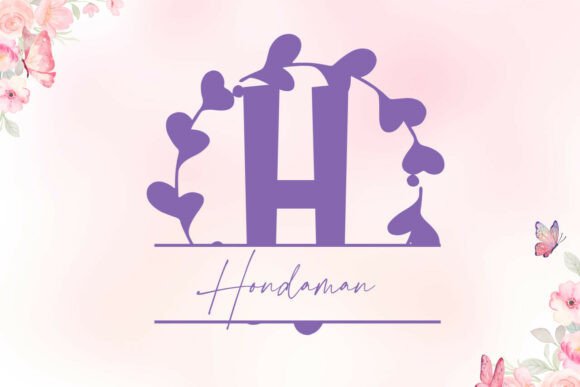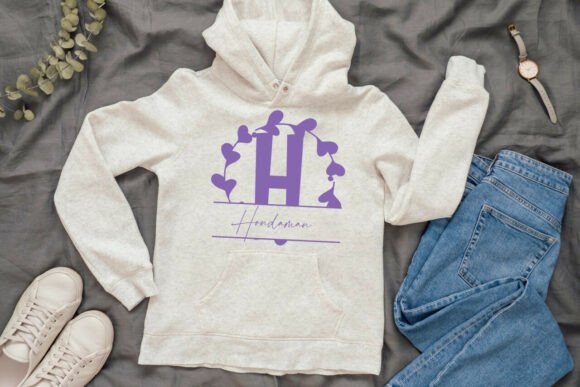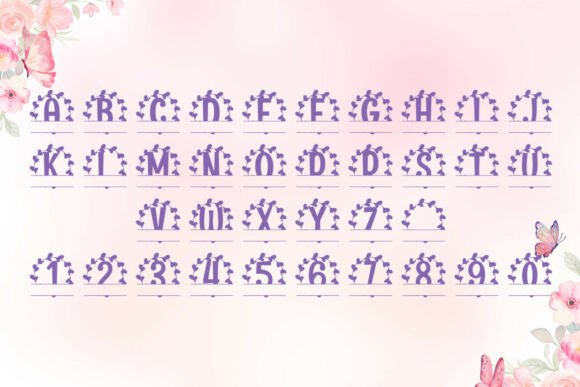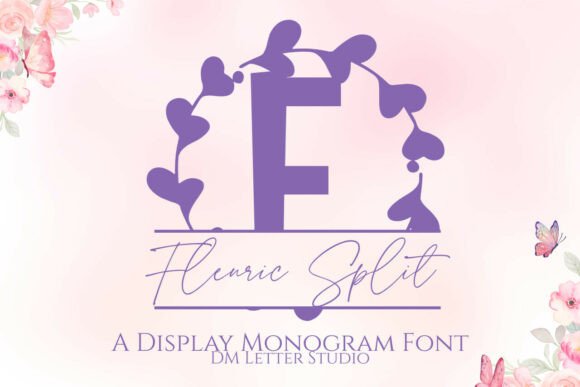
Fleuric Split Monogram Font: Elevate Your Designs with Romantic Elegance
Are you a designer or crafter looking for a unique and captivating font to add a touch of romance and sophistication to your personalized creations? Look no further than the Fleuric Split Monogram Font. This enchanting display monogram font is designed to bring a handcrafted, whimsical feel to your projects, making it perfect for crafters and designers specializing in personalization.
The Distinctive Features of Fleuric Split Monogram Font
The Fleuric Split Monogram Font boasts a bold, solid, split-style uppercase letter that is perfectly bisected by a stylish line. This innovative design allows for personalized text, names, or dates to be inserted directly into the font, creating a one-of-a-kind look. The surrounding heart-shaped floral wreath is seamlessly integrated into the letter’s design, lending an irresistible, feminine, and highly decorative aesthetic.
A Font Designed for Personalization
The Fleuric Split Monogram Font is a dream for crafters and designers who specialize in personalization. Its dual-style format – the split monogram for a focal point and the elegant script for complementing text – makes it perfect for creating custom decals, embroidered designs, wedding decor, personalized gifts, stylish tumblers, and charming nursery art.
With the Fleuric Split Monogram Font, the design possibilities are endless. Imagine creating:
- Custom wedding invitations and decor with a personal touch
- Personalized gifts, such as monogrammed tote bags, pillows, and wall art
- Charming nursery art and wall decor with a sweet, girly feel
- Stylish tumblers and water bottles with a unique, handcrafted design
- Beautiful embroidered designs for clothing, accessories, and home decor
The Delicate Touches of Fleuric Split Monogram Font
The delicate floral and butterfly accents in the Fleuric Split Monogram Font preview highlight its suitability for projects demanding a sweet, girly, and custom-made feel. These whimsical touches ensure that every project feels unique and special, making it perfect for designers and crafters who want to create something truly memorable.
Why Choose Fleuric Split Monogram Font?
So, why choose the Fleuric Split Monogram Font for your next project? Here are just a few reasons:
- Unique and captivating design: The Fleuric Split Monogram Font features a distinctive, handcrafted design that will set your projects apart from the rest.
- Highly customizable: With the ability to insert personalized text, names, or dates directly into the font, you can create truly one-of-a-kind designs.
- Perfect for personalization: The font’s dual-style format makes it ideal for creating custom decals, embroidered designs, and other personalized items.
- Suitable for a variety of projects: From wedding decor to nursery art, the Fleuric Split Monogram Font is versatile enough to be used in a wide range of projects.
With the Fleuric Split Monogram Font, you’re just a few clicks away from elevating your designs and adding a touch of romance and sophistication. Whether you’re a seasoned designer or a crafter looking for a unique font, this enchanting display monogram font is sure to inspire.
In conclusion, the Fleuric Split Monogram Font is a must-have for designers and crafters looking to add a touch of whimsy and romance to their personalized creations. With its distinctive design, highly customizable features, and versatility, this font is perfect for a wide range of projects. So why wait? Get ready to elevate your designs and make your projects truly unforgettable with the Fleuric Split Monogram Font.